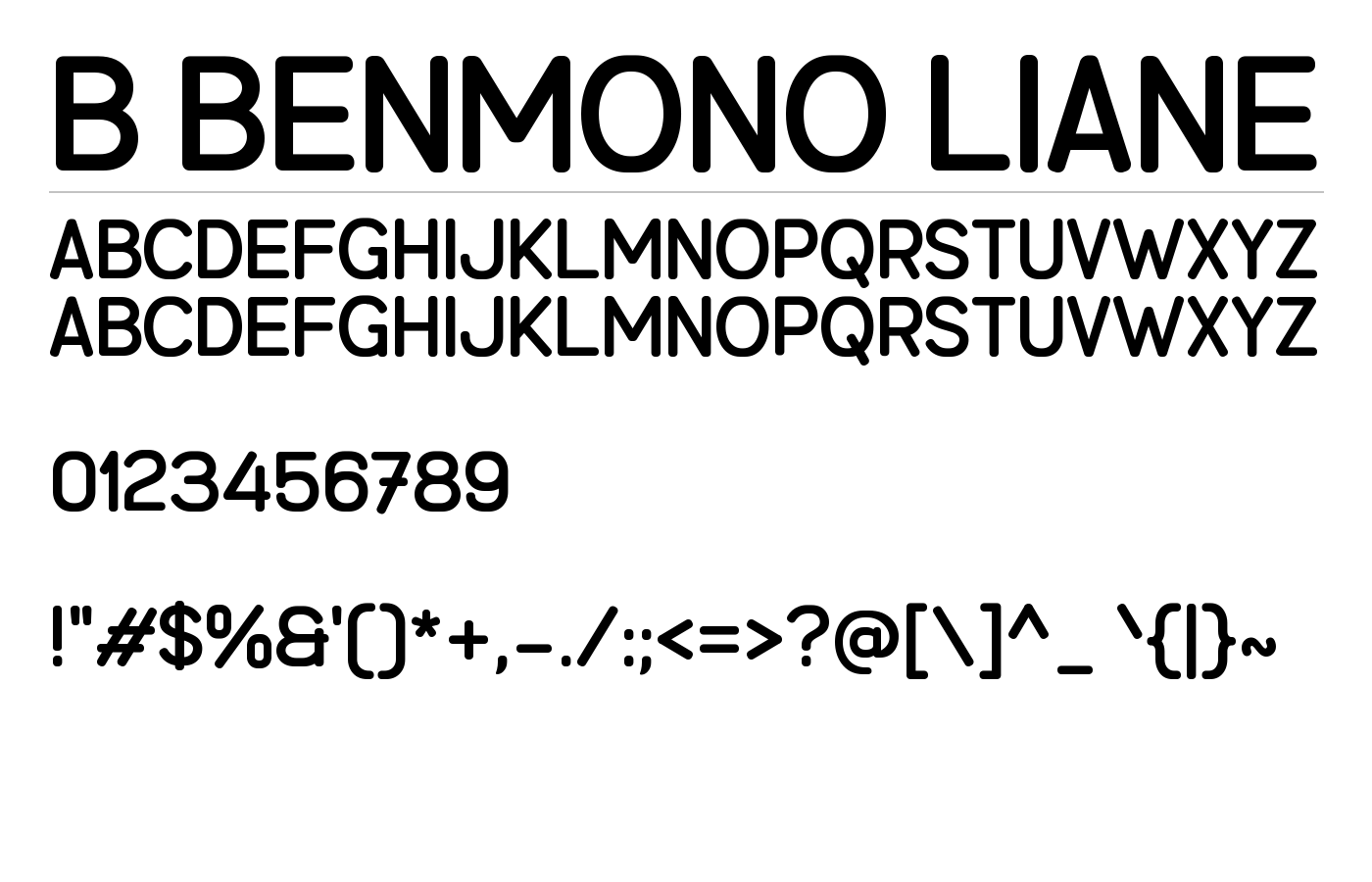
b Benmono Liane is a clean, modern sans serif font with a monospace design that features rounded corners and a slightly condensed width. Its consistent stroke weight and geometric shapes give it a friendly yet technical feel, making it ideal for coding environments, tech branding, and contemporary editorial uses. This font works well for clear, legible headlines and user interfaces where clarity and approachability are essential.
b Benmono Liane Font